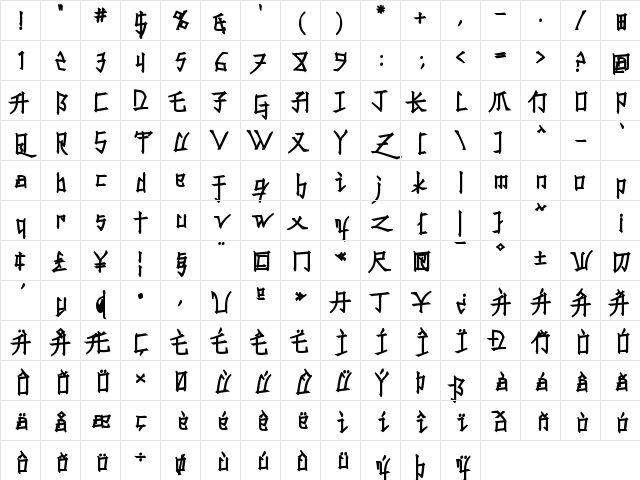
Konfuciuz Fat Regular
Designer: Apostrophe
Design Context for Konfuciuz Fat
Konfuciuz Fat is a composed and adaptable typeface that performs quietly and consistently across a wide range of design contexts.
Pro Tip: Use Konfuciuz Fat in both headline and body roles to test its range before committing to a single application.